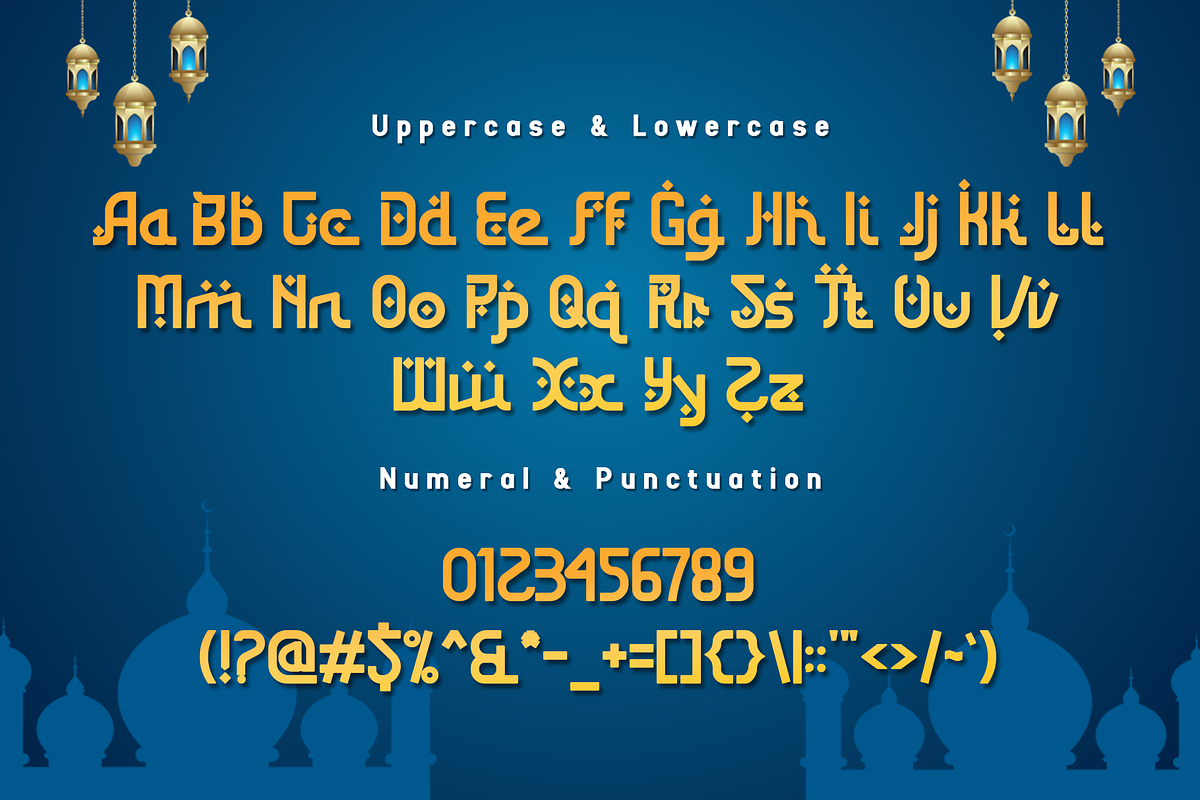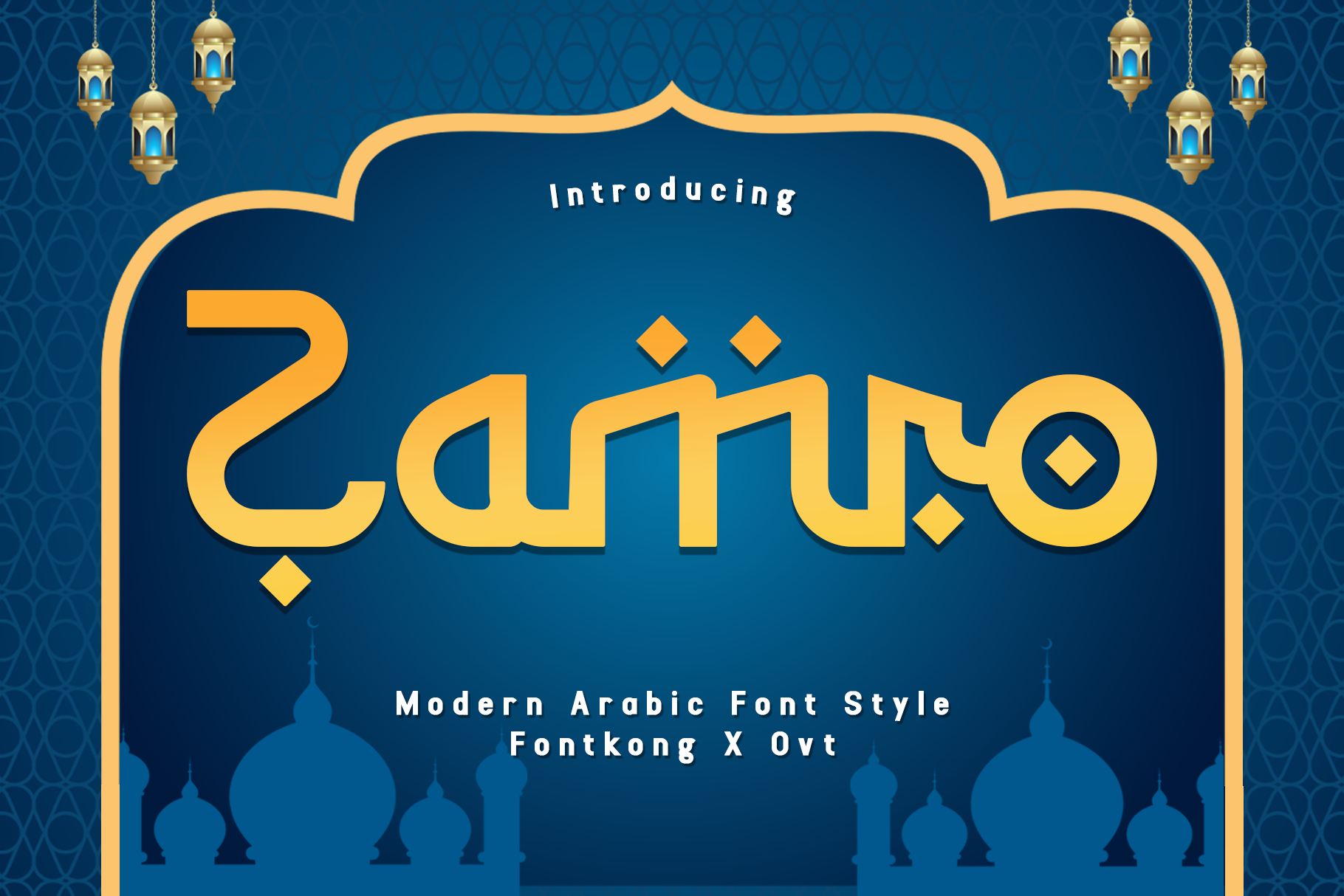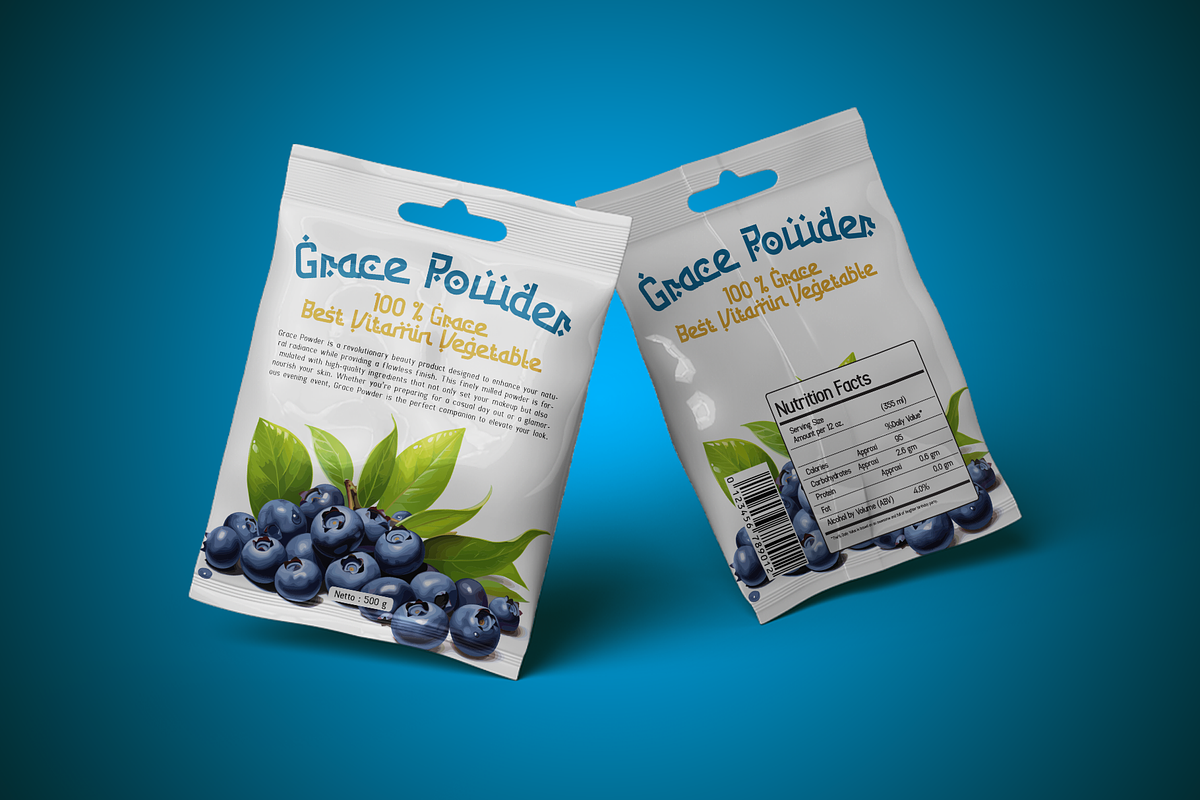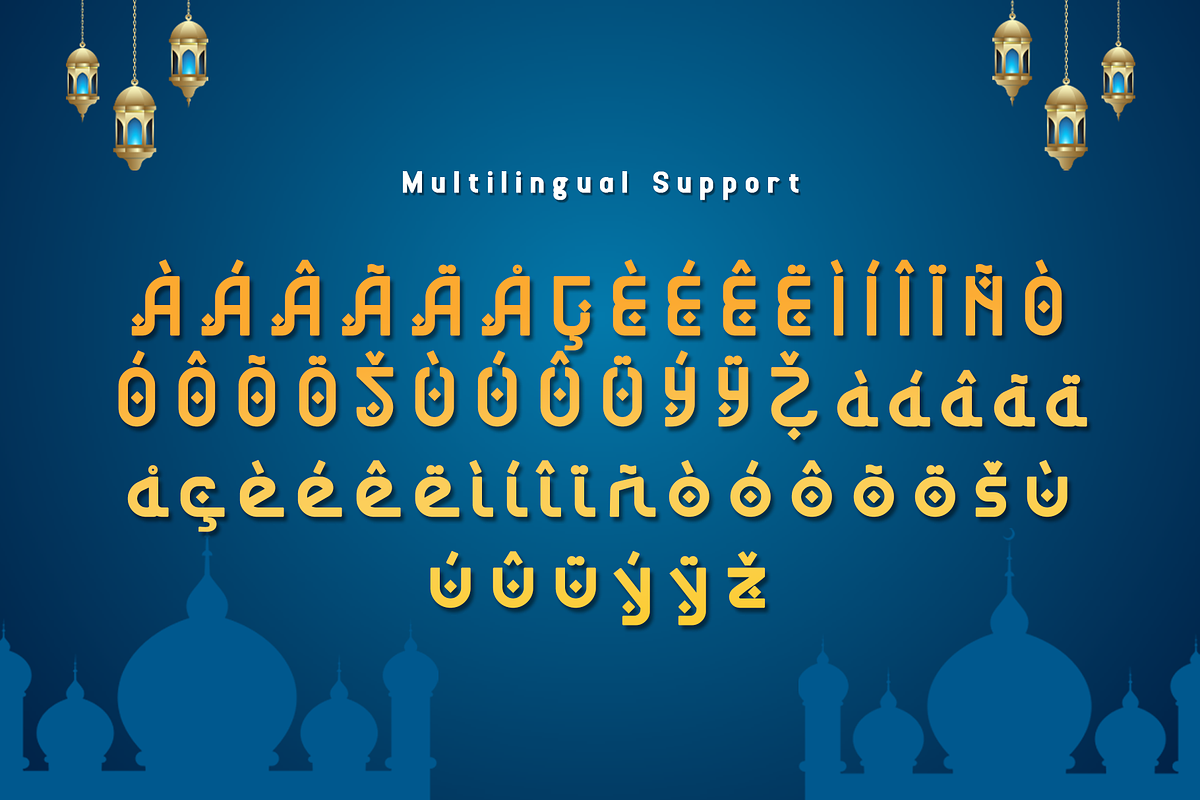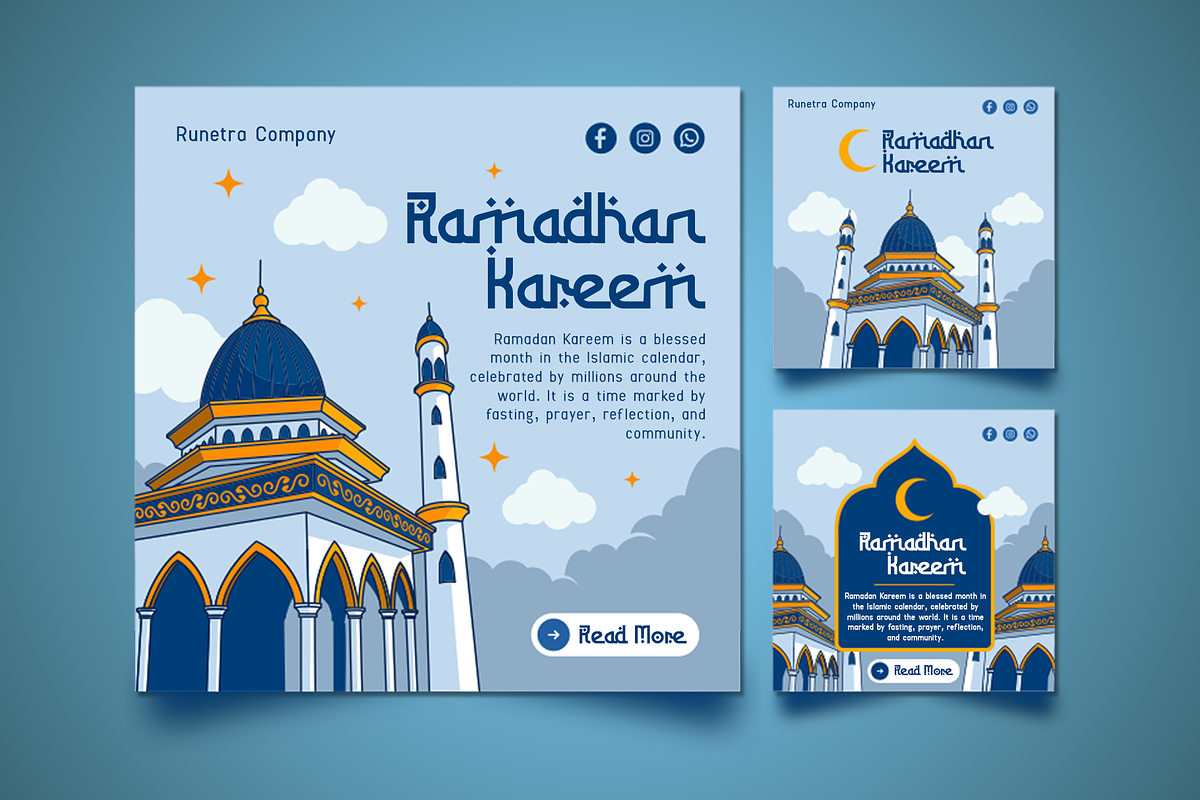
Zamro – A Modern Arabic Font Style
Zamro is a sleek and contemporary Arabic-style font designed to fuse traditional elements with modern design. Its refined curves and balanced structure make it suitable for a variety of applications, including branding, logos, posters, invitations, packaging, and digital content. This font reflects the elegance of Arabic typography while maintaining versatility for modern use.
Perfect for both decorative and functional purposes, Zamro enhances readability without compromising its artistic appeal. Whether you’re working on cultural projects or looking to add a unique flair to your designs, this font delivers a sophisticated, professional look.
Elevate your work with Zamro a font that embodies the essence of tradition with a bold, modern twist.